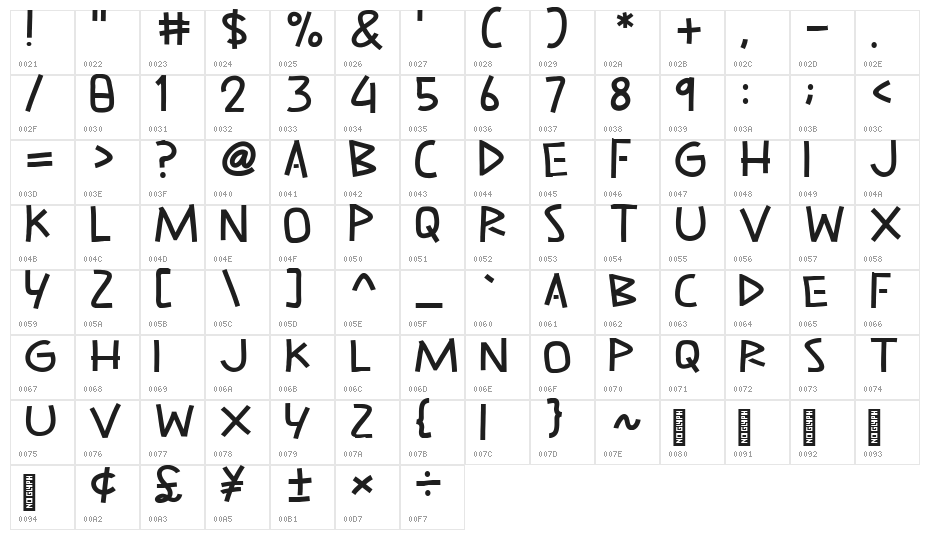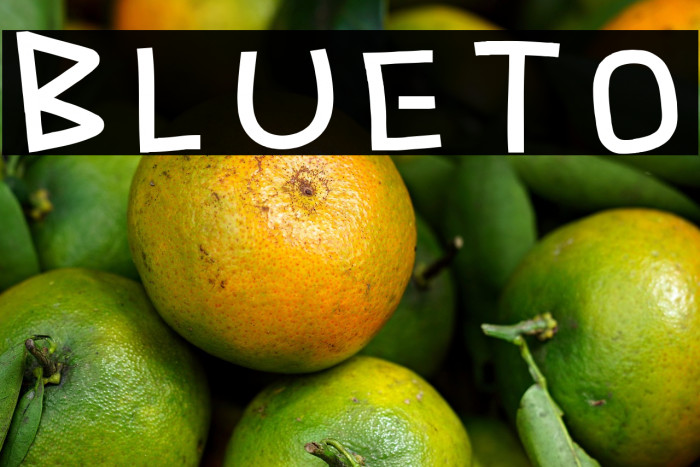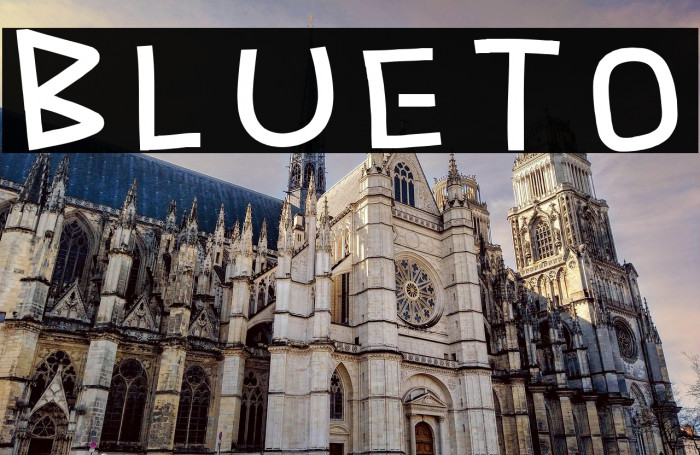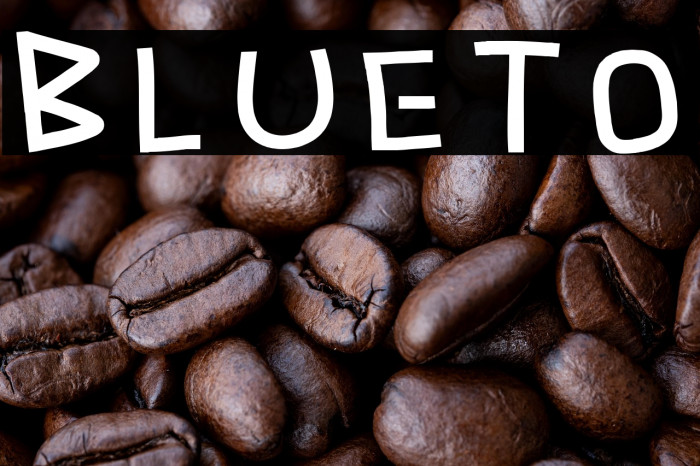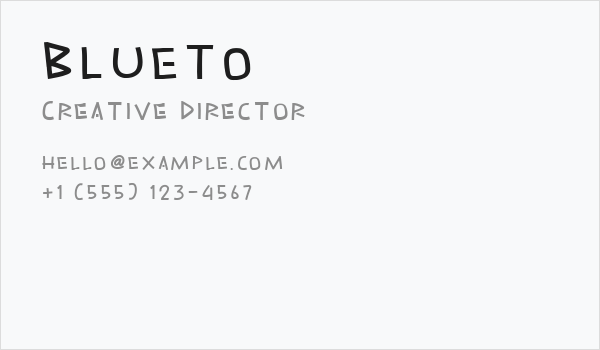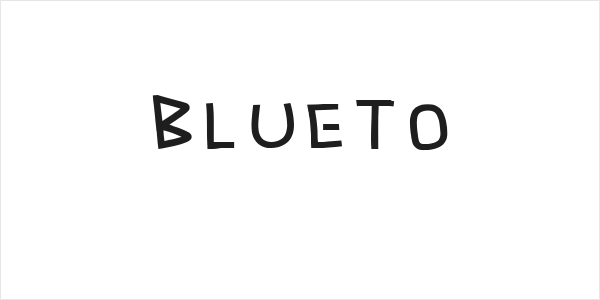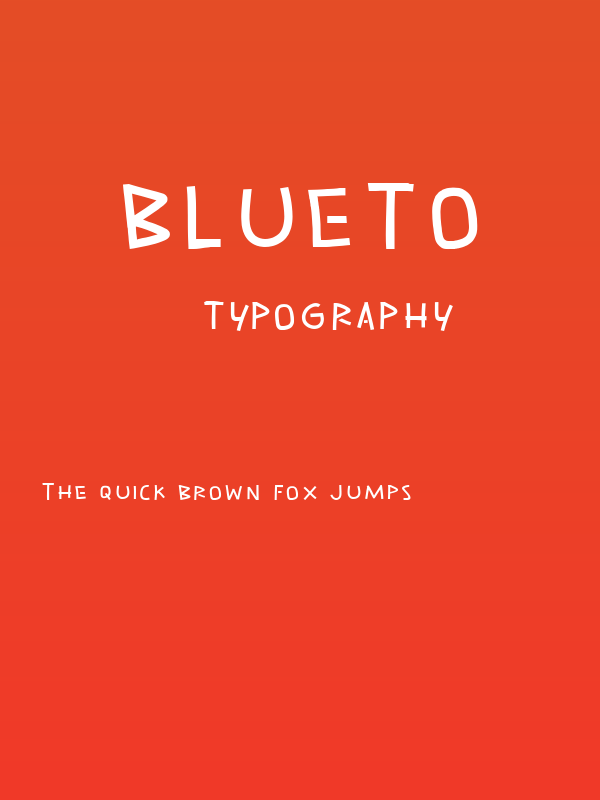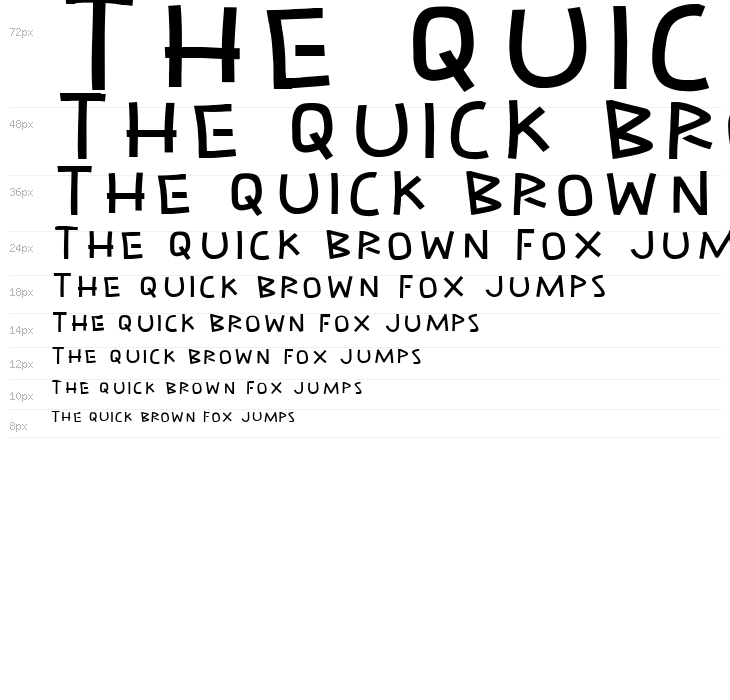
Blueto Font
Blueto Description
This font features a playful and informal style, characterized by its hand-drawn appearance. The letters have a whimsical, uneven quality, giving them a casual and approachable feel. The strokes are bold and consistent, providing good readability while maintaining a fun and quirky aesthetic. The characters are slightly irregular, adding to the charm and uniqueness of the font. It includes a full set of uppercase and lowercase letters, numbers, and a variety of special characters, making it versatile for different uses.
| Overall Style | Playful |
| Use Case | Headlines, Logos, Informal Text |
| Proposed Projects | Ideal for children's books, comic strips, casual branding, and playful graphic design projects. |